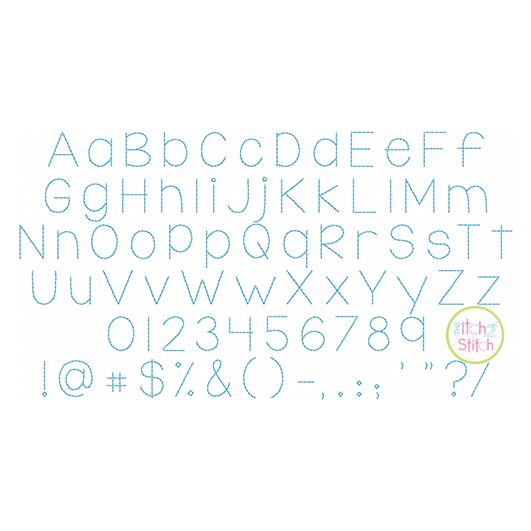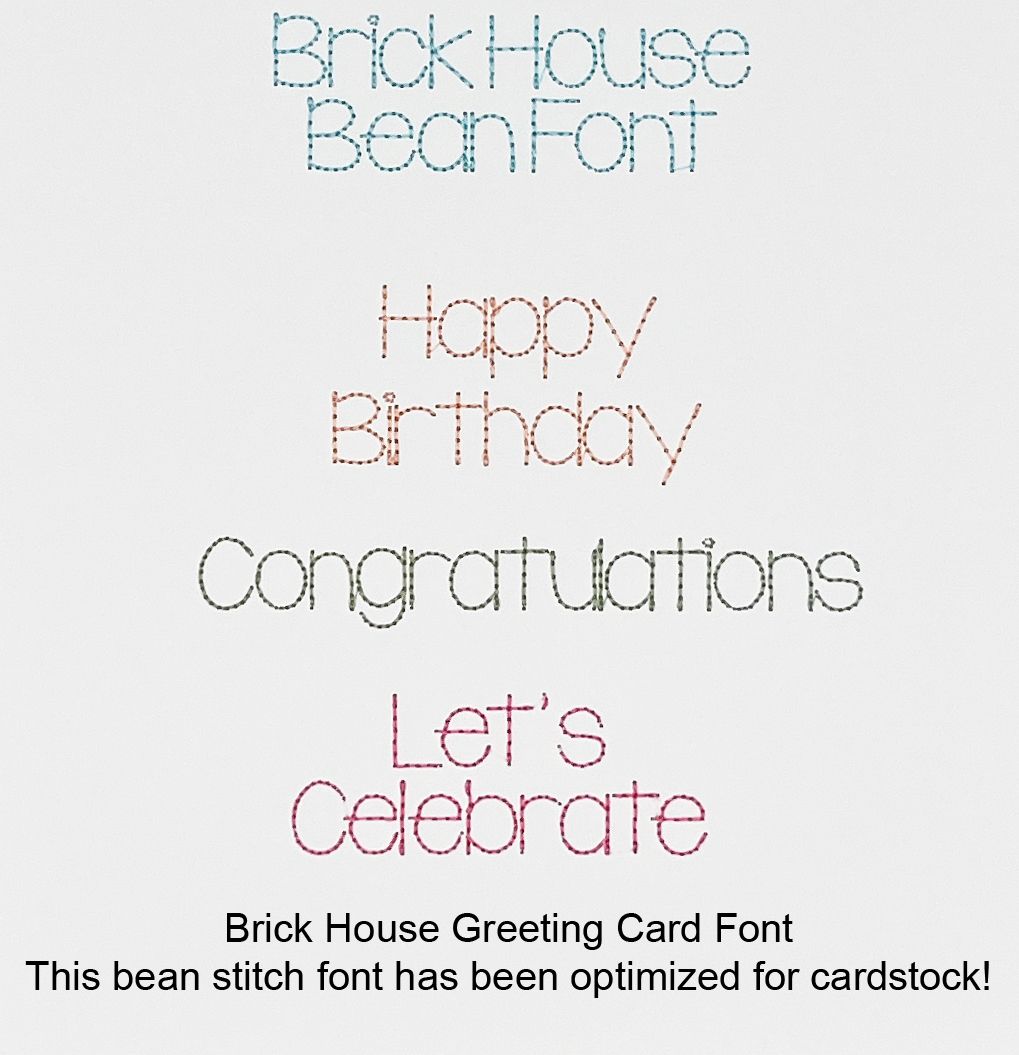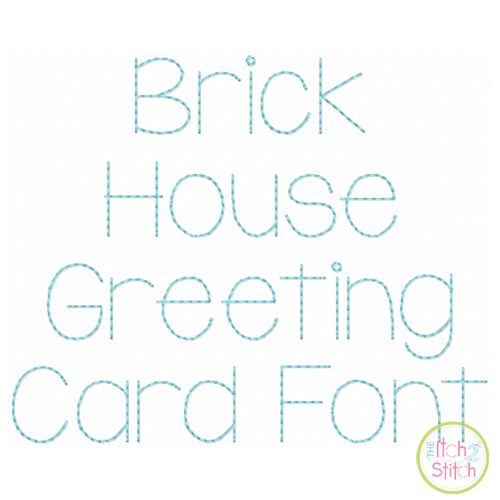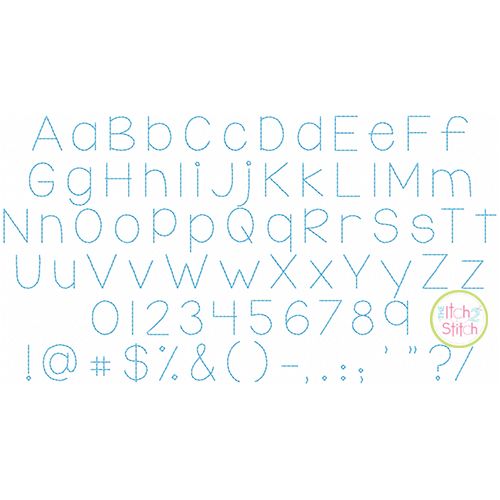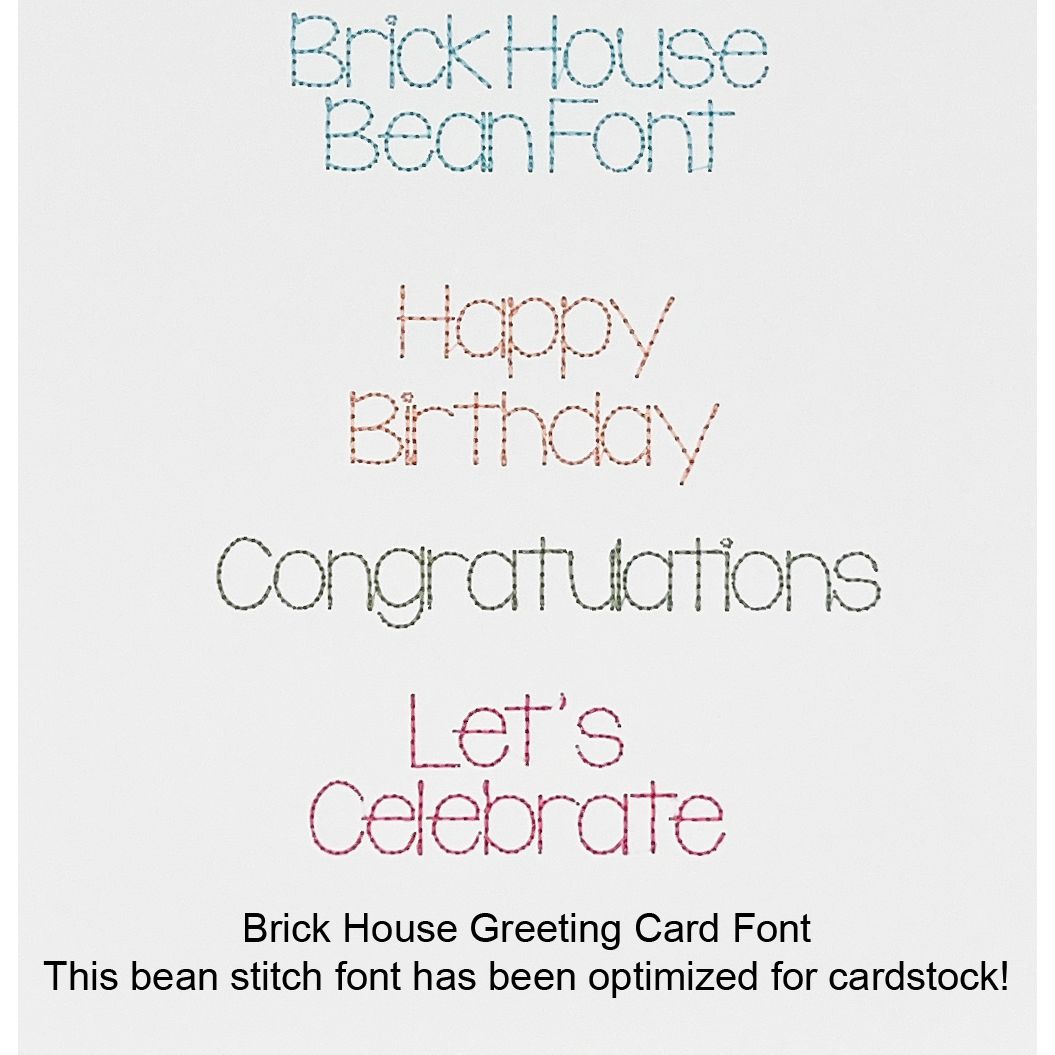
Brick House Greeting Card Bean Stitch Embroidery Font
Add a personal touch to our greeting card designs with this triple-bean stitch font! It has been optimized for stitching on watercolor paper (half-inch size is shown).